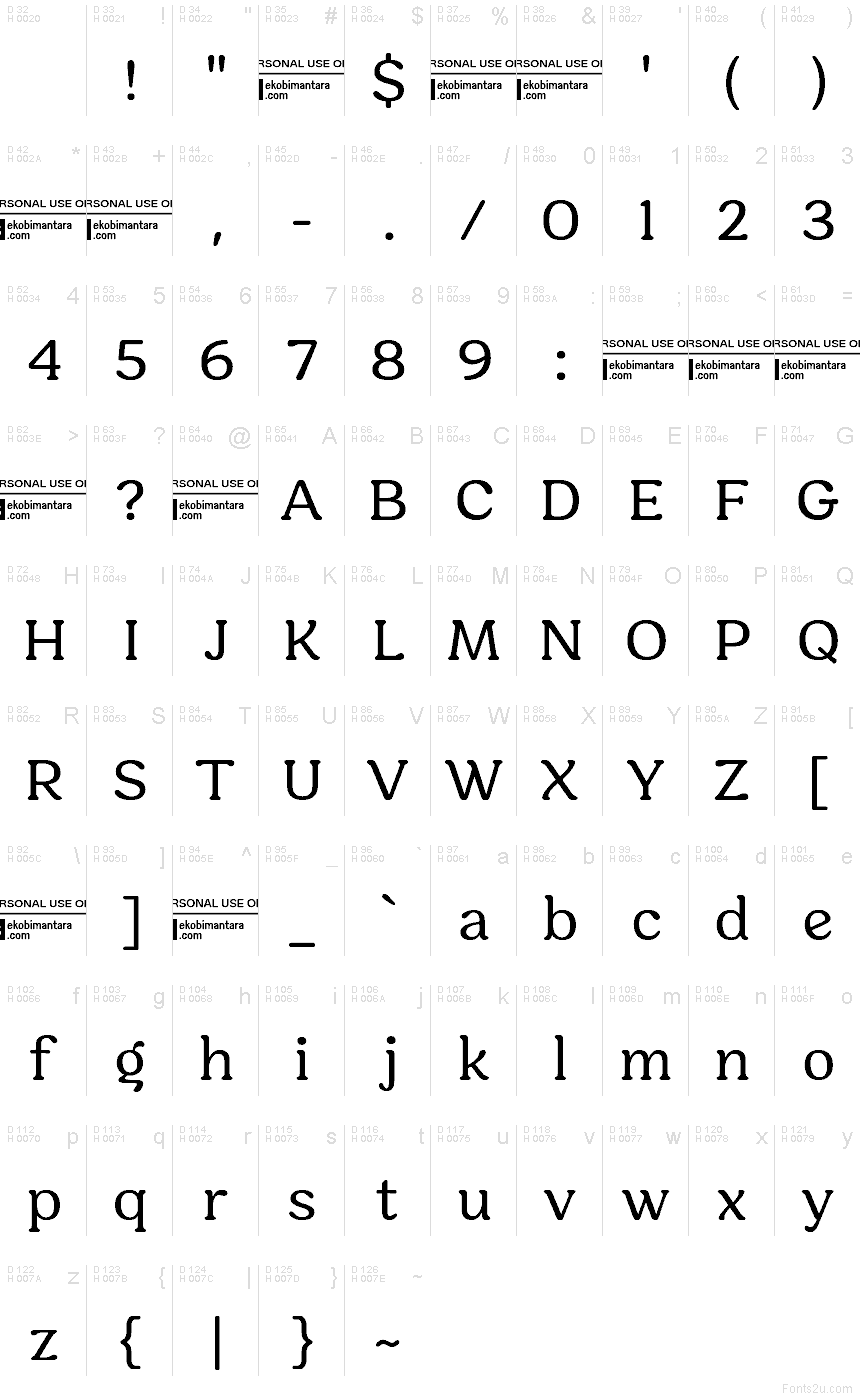
Hornbill Trial Regular
Hornbill font by Eko Bimantara is a free retro serif font. It solves the classic challenge of getting vintage warmth without losing clarity: rounded ball terminals, softly bracketed serifs, and a steady rhythm give it personality, while the open counters keep headlines crisp on screens and print. There’s a gentle swing to the curves that feels nostalgic, not fussy.
Using Hornbill, your titles land with friendly authority—great for cafe branding, boutique logos, book covers, posters, packaging, and editorial headers. This free font shines on large settings and short lines; give it a touch of tracking to let the teardrop terminals breathe. For body copy, pair Hornbill with a clean grotesque sans to keep layouts balanced.